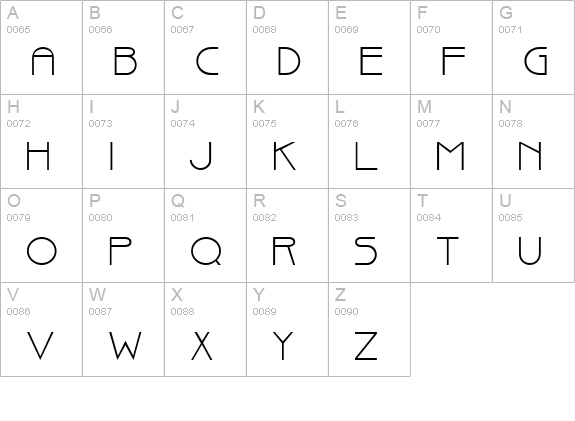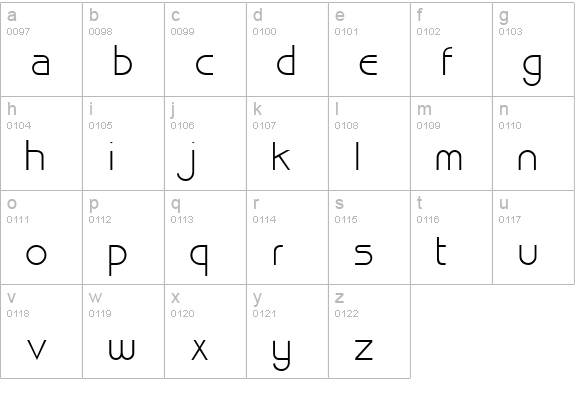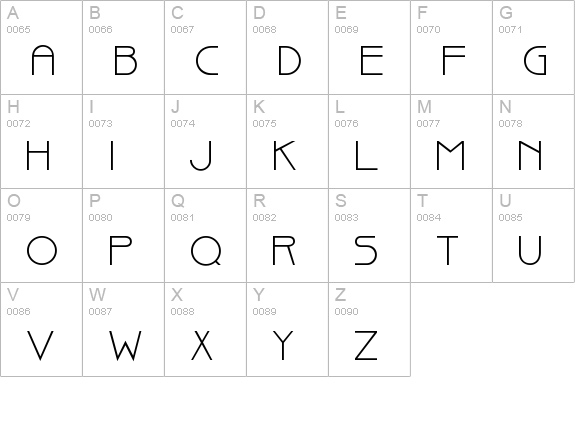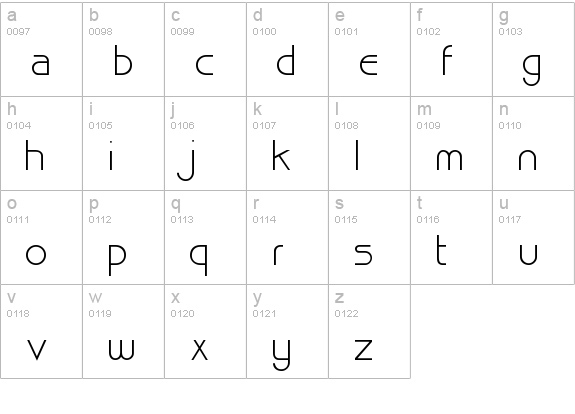
Introducing Brisk font, a modern and stylish typeface that exudes elegance and sophistication. With its clean lines and sleek design, Brisk is perfect for a wide range of design projects, from branding to editorial layouts. This versatile font is sure to make your text stand out and capture the attention of your audience. The best part? Brisk font is available for free download at FontsMarket.com. Yes, you read that right - you can get your hands on this stunning typeface without spending a dime. So why wait? Elevate your designs with Brisk font today and see the difference it can make.